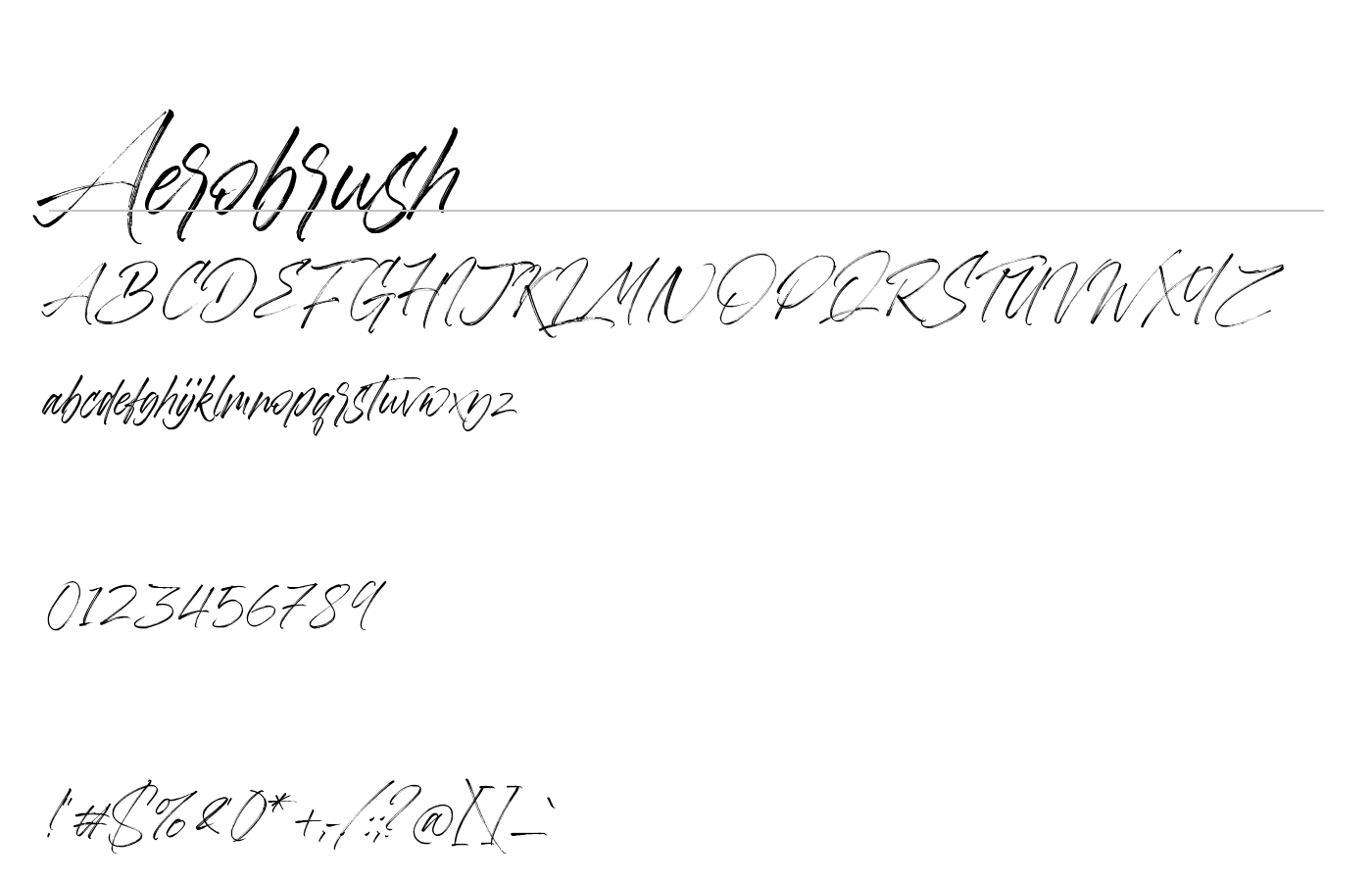
Aerobrush is a delicate, handwritten script font with a flowing, brushstroke style that feels both artistic and dynamic. Its light weight, elegant curves, and airy structure make it perfect for creative projects that want to convey a sense of personal touch, sophistication, and spontaneity. This font works well for logos, invitations, and branding that seek an expressive, stylish, and modern handwritten look.
Aerobrush Font
About Aerobrush Font